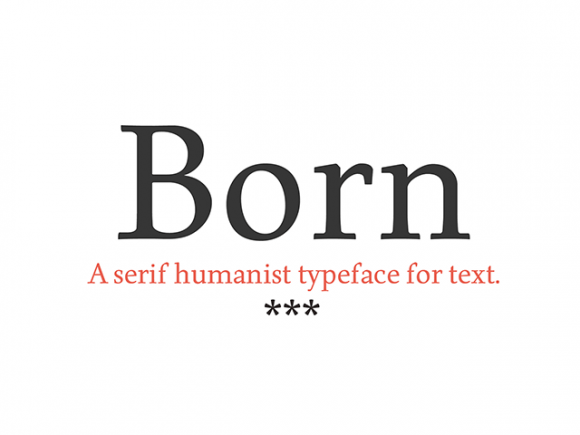
Free Born A serif humanist typeface
Download and enjoy this free born a serif humanist typeface. Cool typeface to showcase your designs in a modern way. Download this free font from the original source of Freebies Bug. This is absolutely fancy font so you can easily make world-class designs.